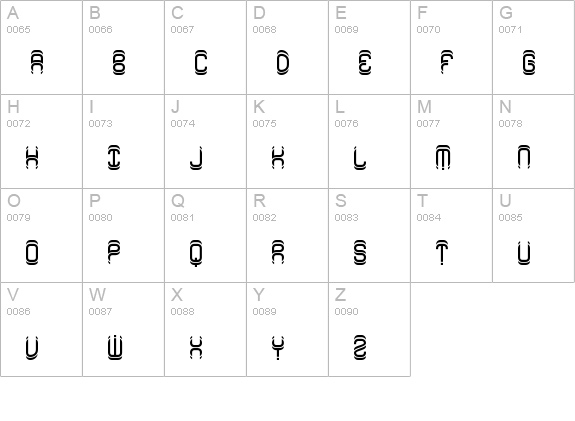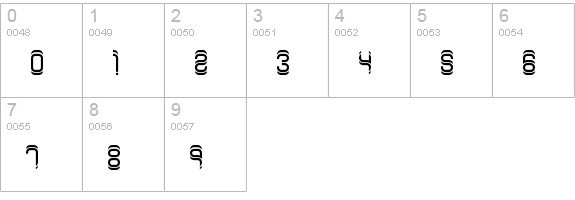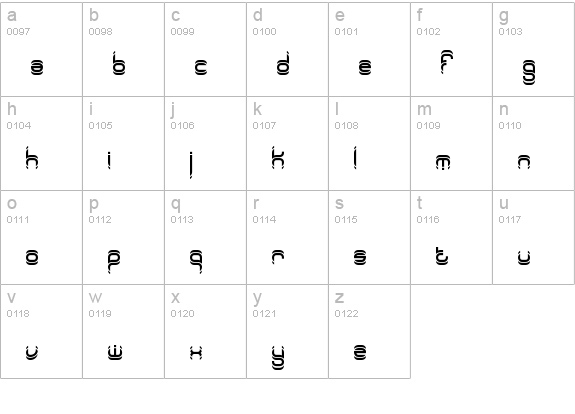
Synthetic BRK font is a modern and stylish typeface that exudes a futuristic vibe. With its sleek lines and geometric shapes, this font is perfect for projects that require a contemporary touch. Whether you're designing a website, creating a logo, or crafting promotional materials, Synthetic BRK will make your text stand out. The best part? Synthetic BRK font is completely free to download! You can easily access this versatile typeface at FontsMarket.com, where you'll find a wide range of free fonts to suit all your design needs. Enhance your projects with Synthetic BRK today and give your text a fresh and dynamic look.